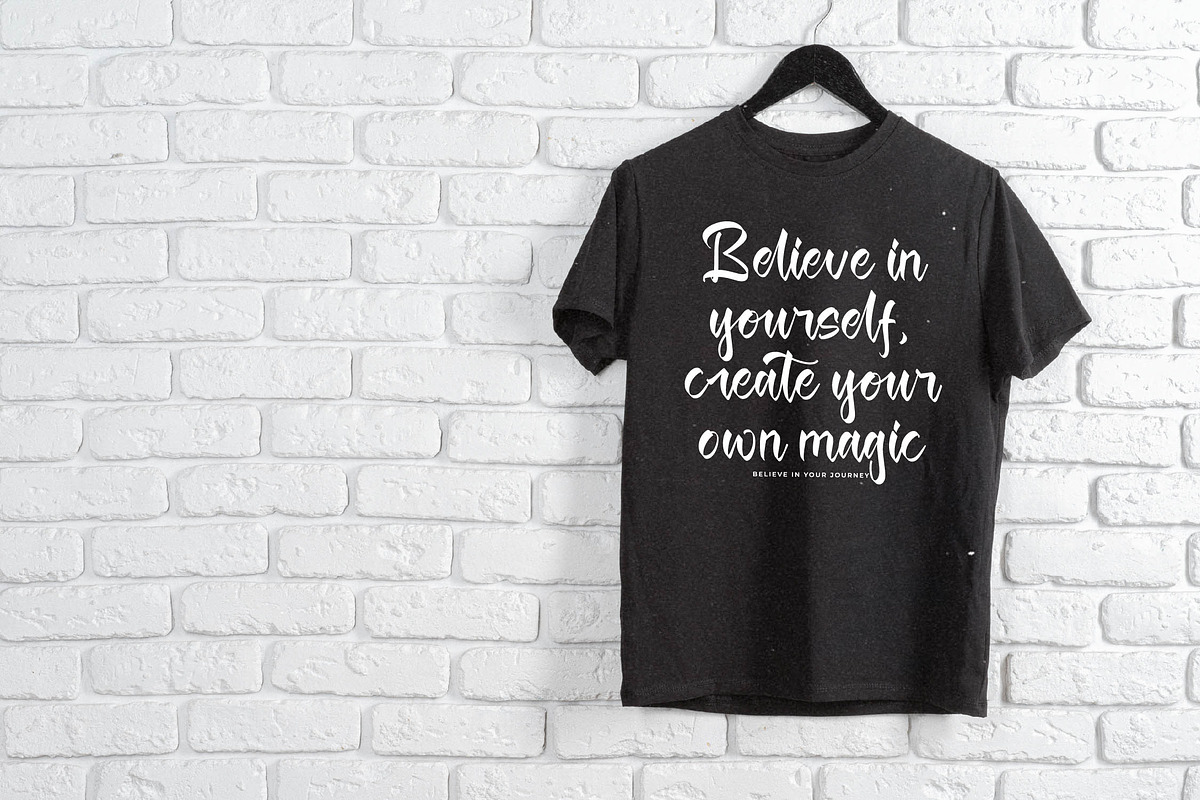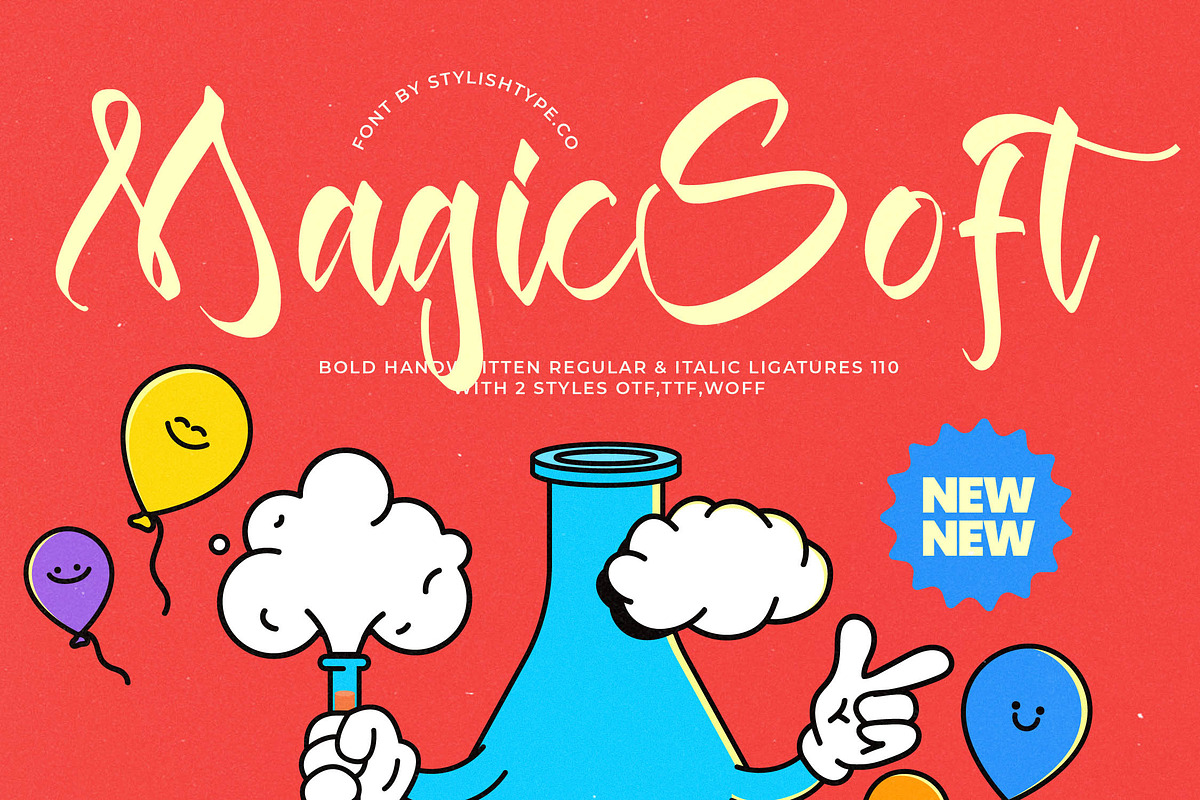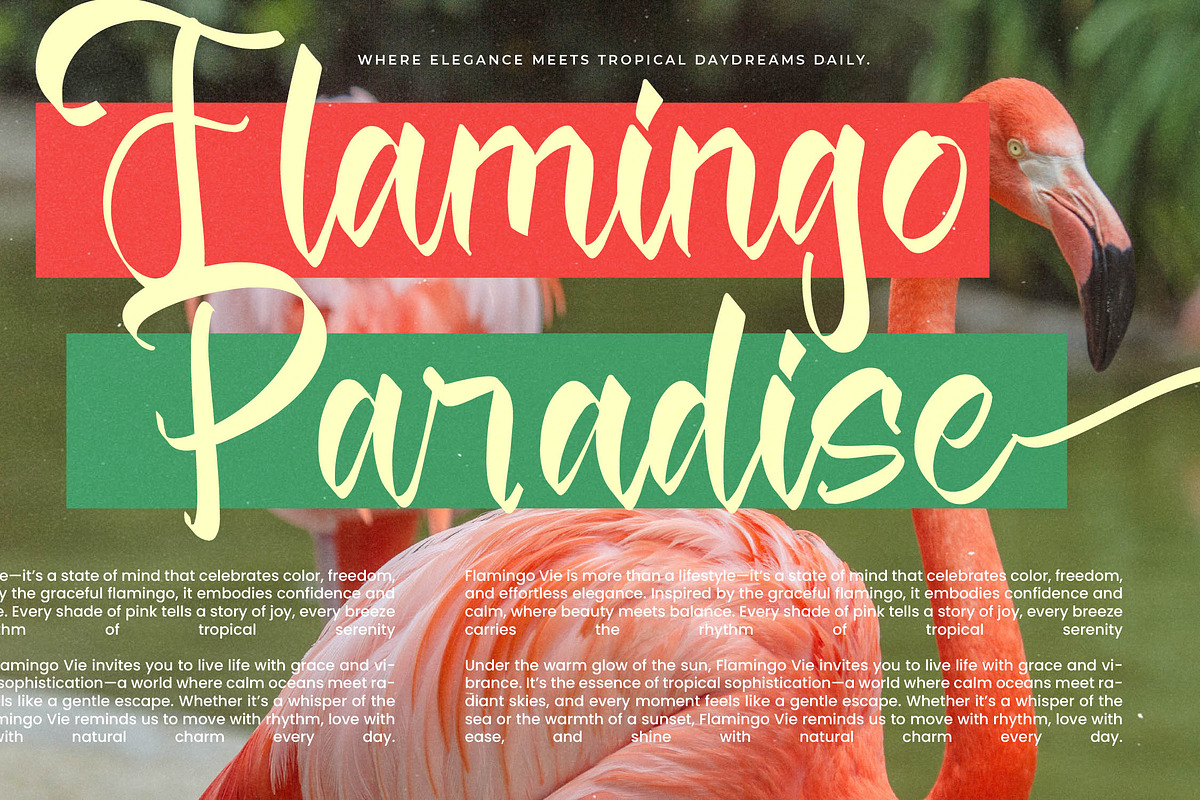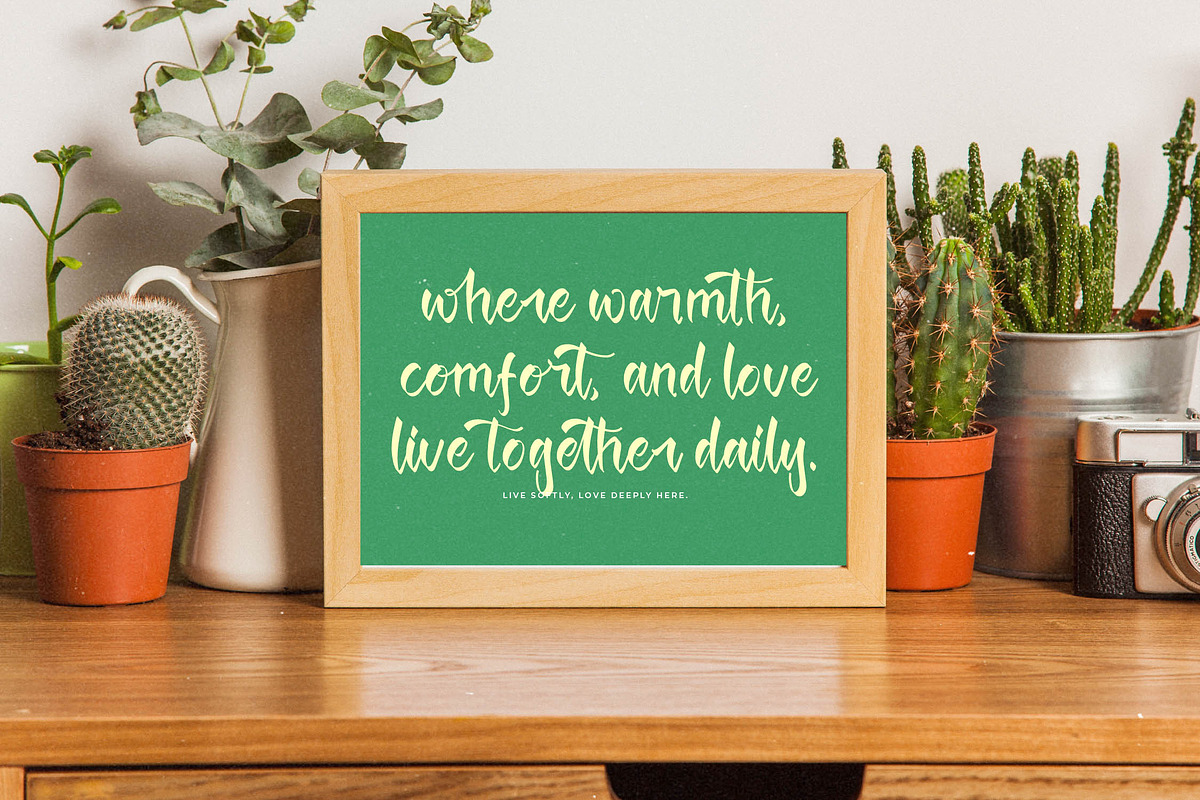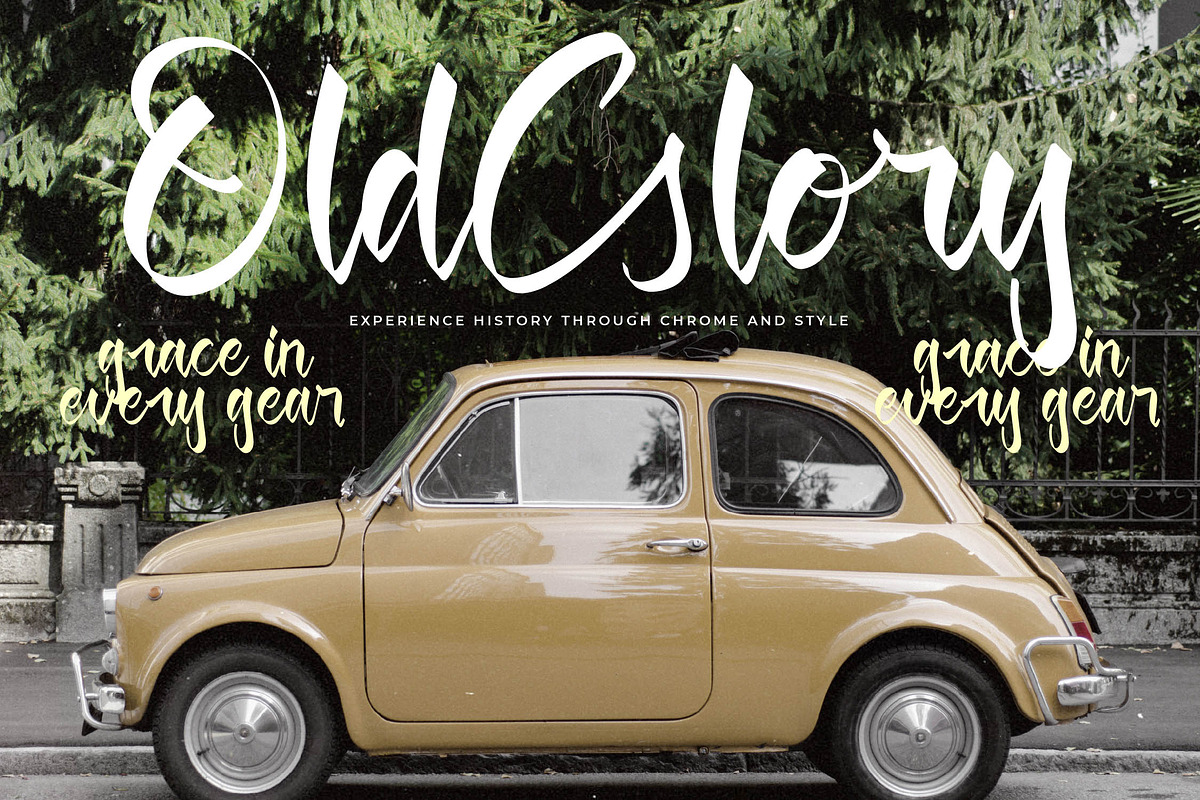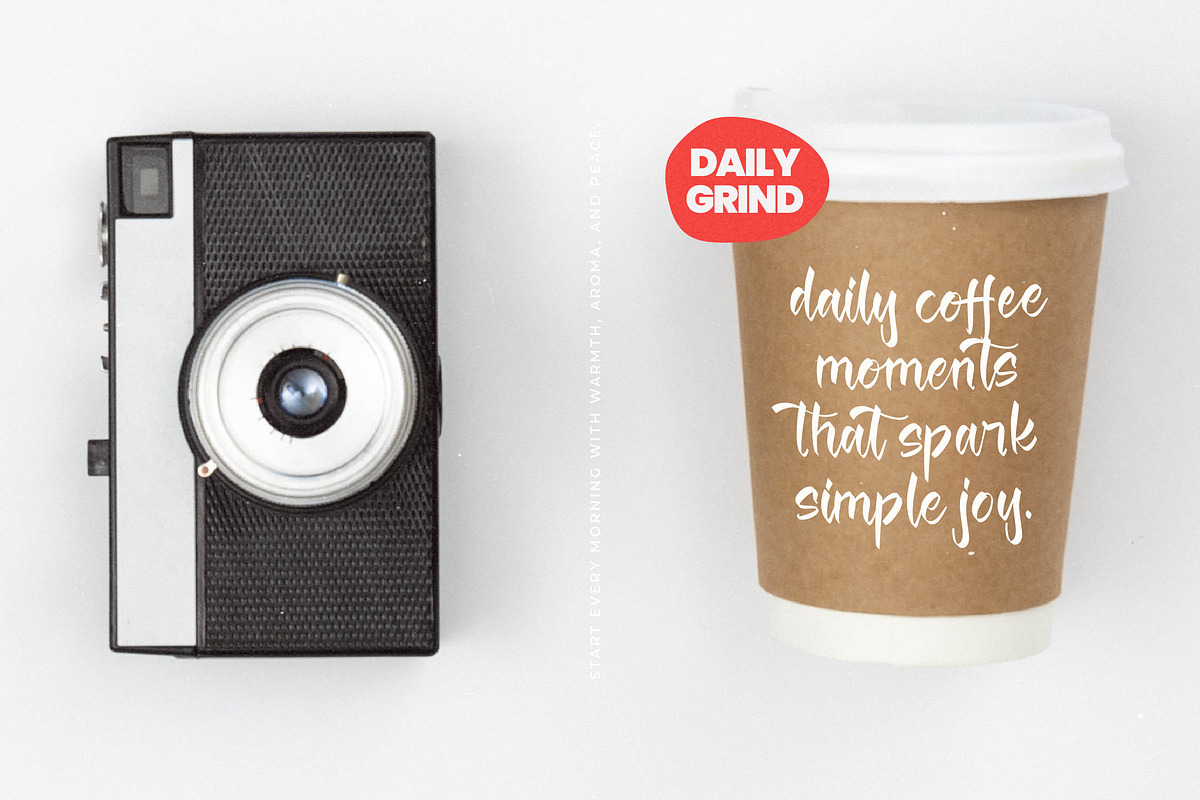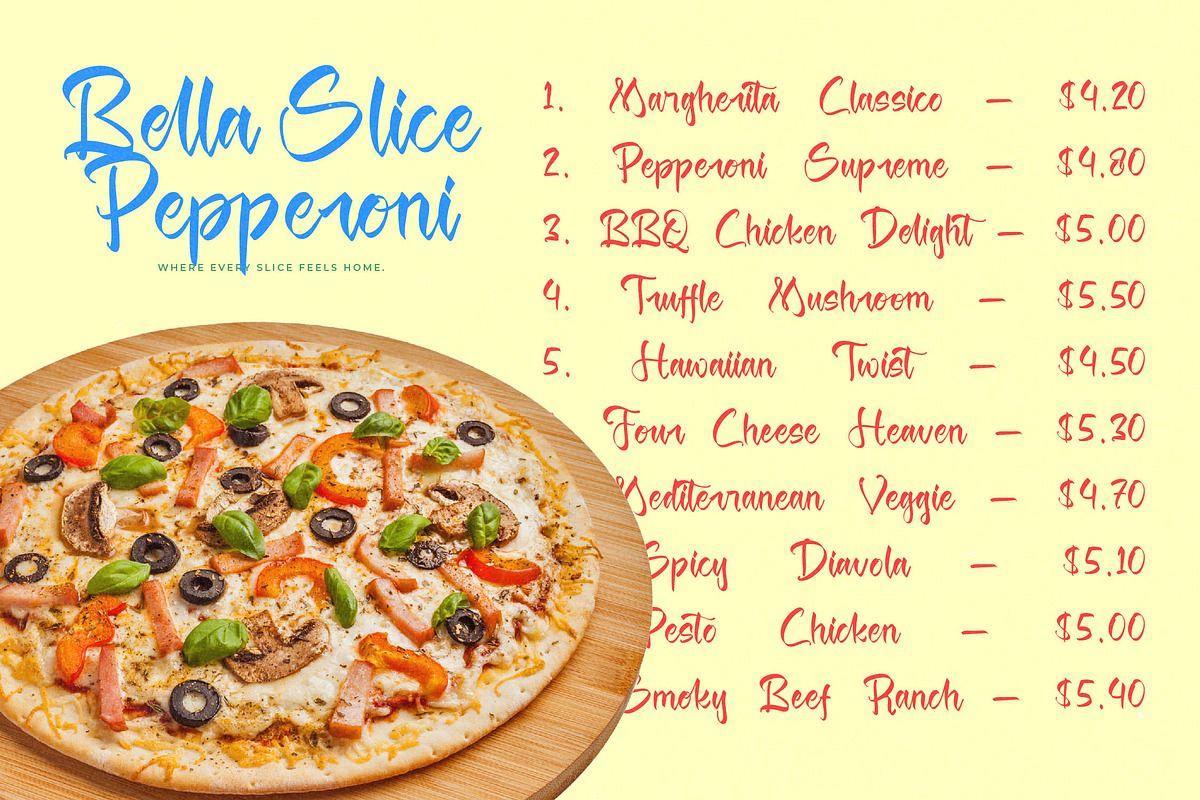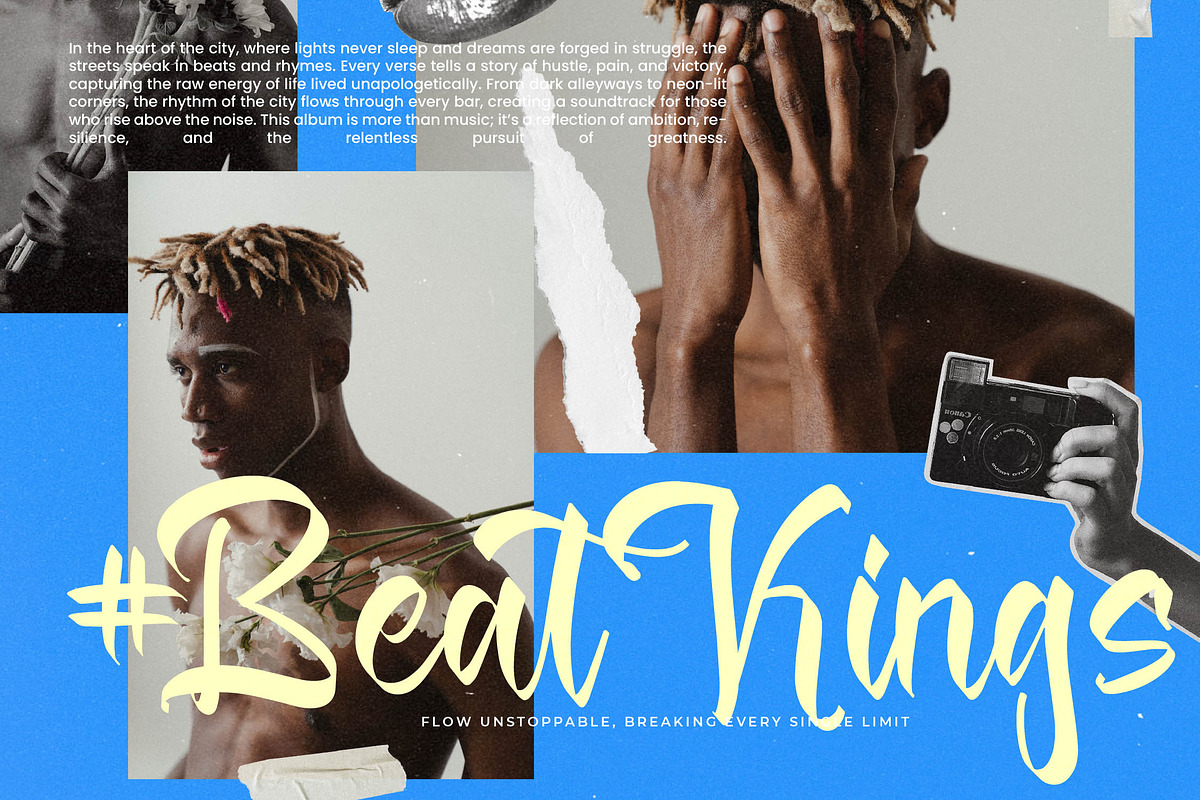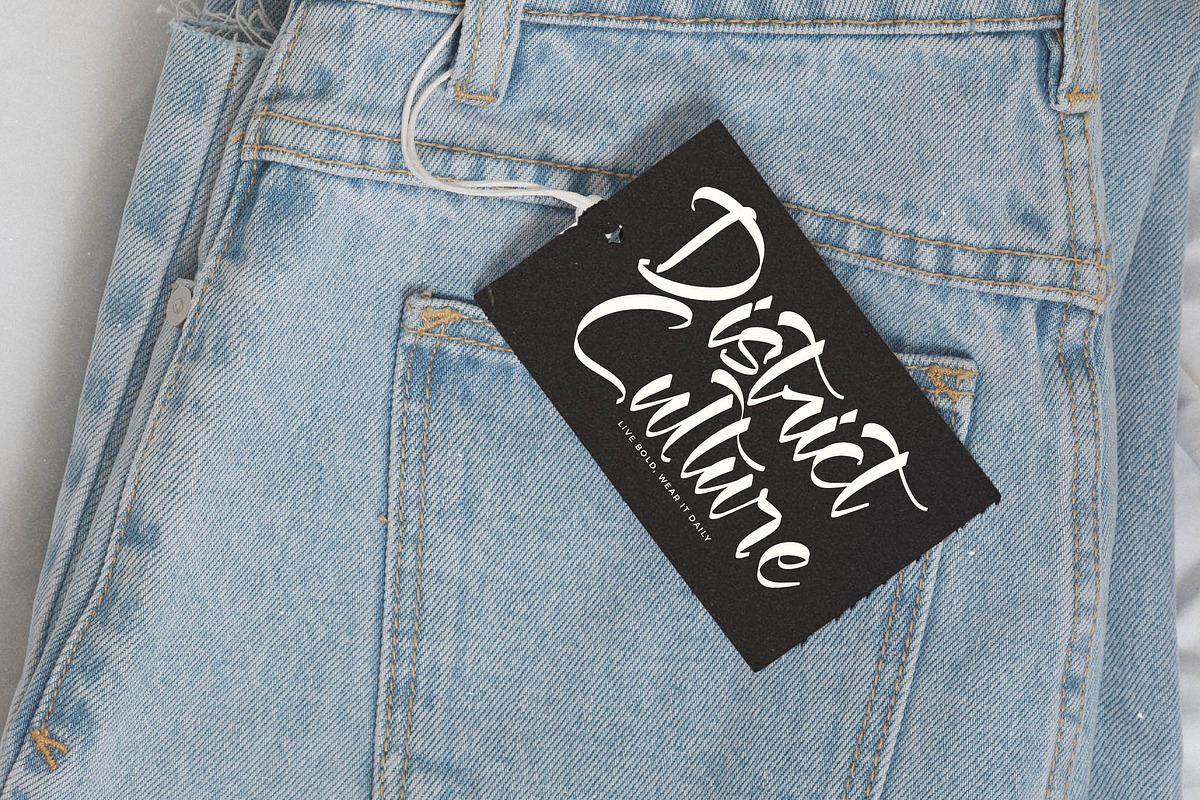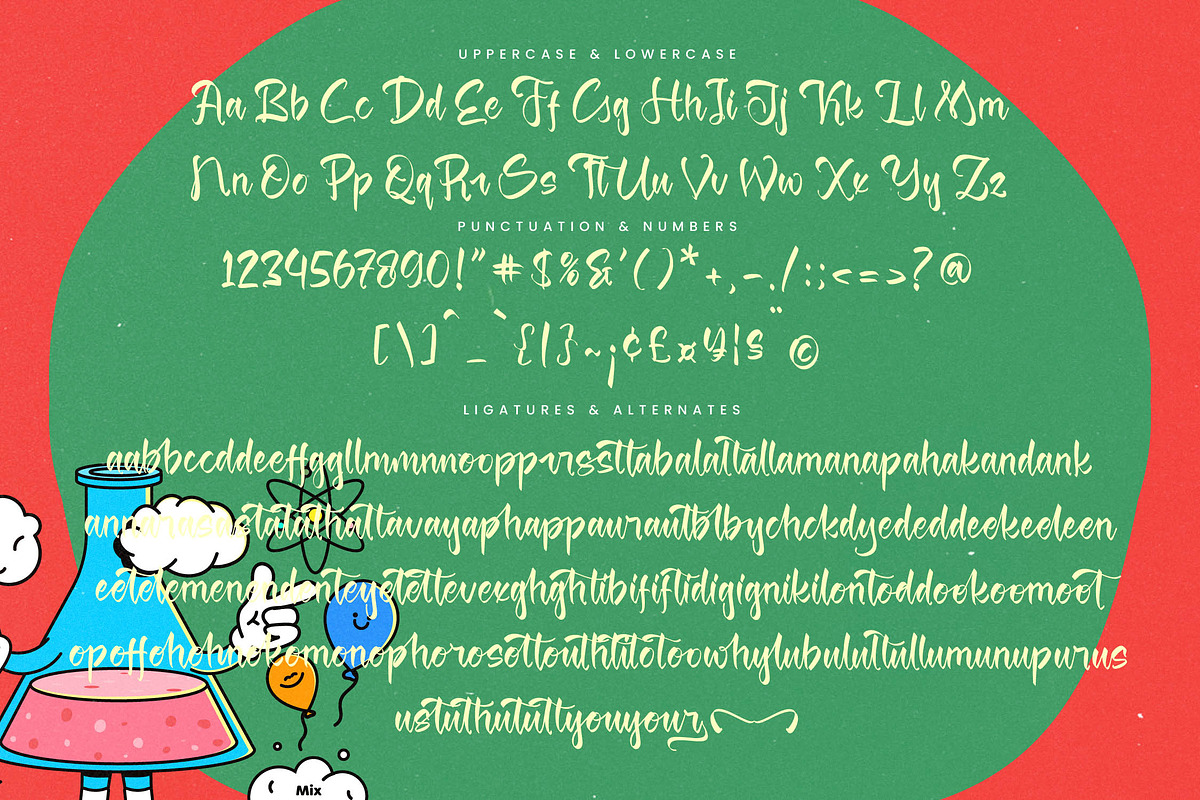
Magic Soft Bold Handwritten Font
Magic Soft - Bold Handwritten Font , Magic Soft is a Bold Handwritten Font crafted with smooth curves, playful strokes, and an energetic handwritten feel. Designed to bring fun, warmth, and personality into your projects, this font is perfect for children’s themes, creative branding, colorful packaging, posters, social media graphics, and modern advertisements.
Magic Soft includes 110 ligatures, 2 styles (Regular & Italic), and supports OTF, TTF, and WOFF formats — giving you maximum flexibility for expressive and dynamic typography. With its bouncy rhythm and soft handwritten flow, this font delivers a cheerful, eye-catching visual impact.